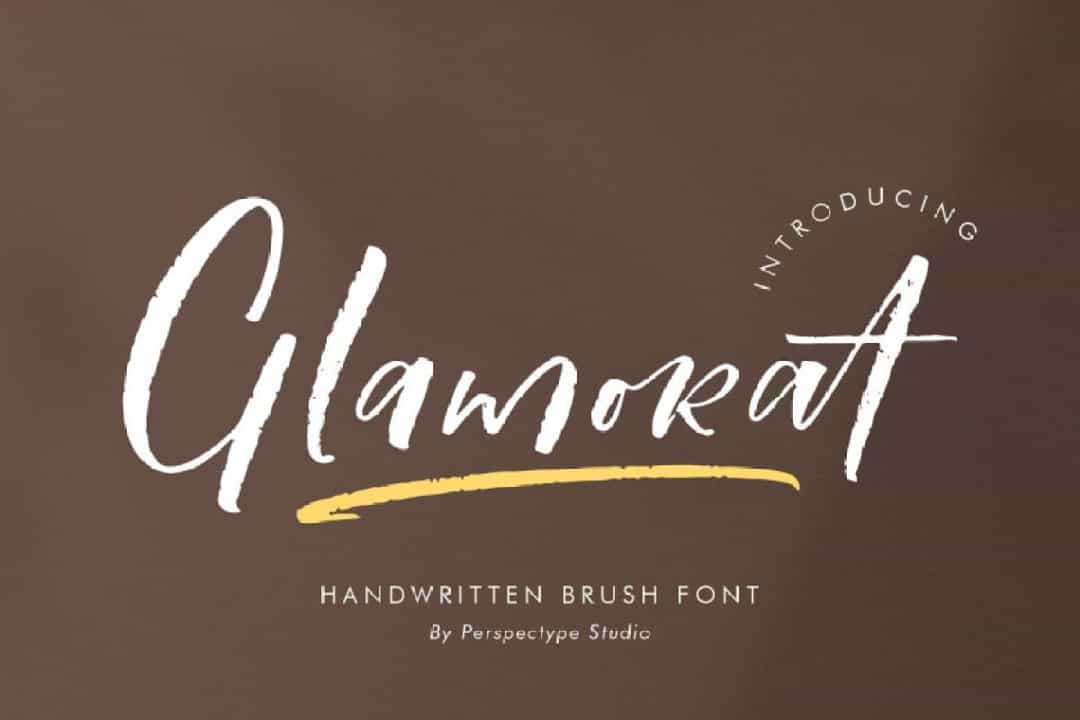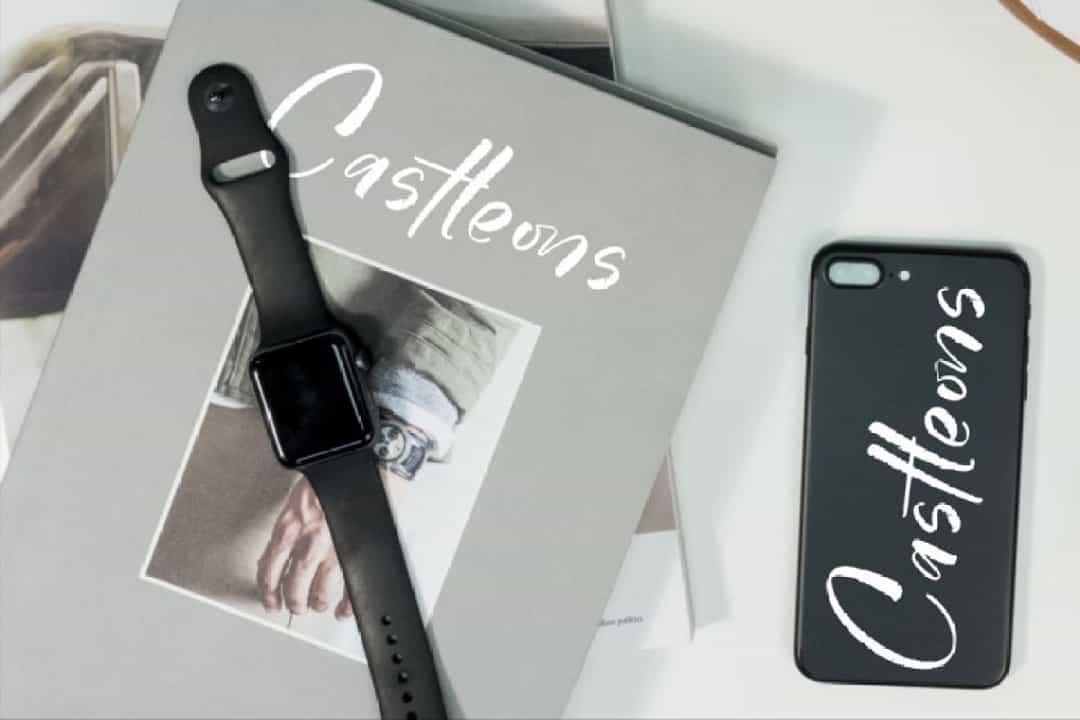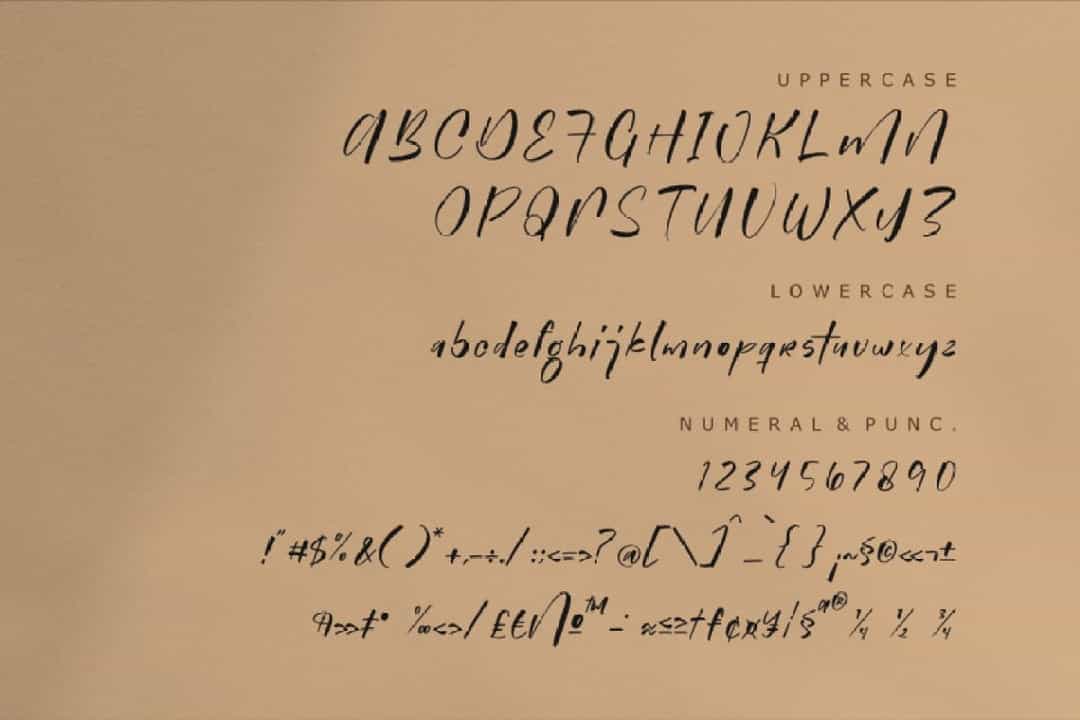
Discover Glamorat Font, part of the Brush collection—a versatile and unique font perfect for adding a personal touch to your projects. Download it for free and enjoy crafting designs with style, from invitations to social media posts. This font is available exclusively for personal use, giving you the freedom to create without limits. Unlock your creativity with Glamorat Font today!
Glamorat can be described as an exquisite handwritten brush font. This striking typeface makes a statement in branding, logos, projects and homeware designs, such as packaging mugs posters quotes bags t-shirts shopping bags books book covers invitation cards name cards greeting cards watermarks photographs watermarks among other occasions.